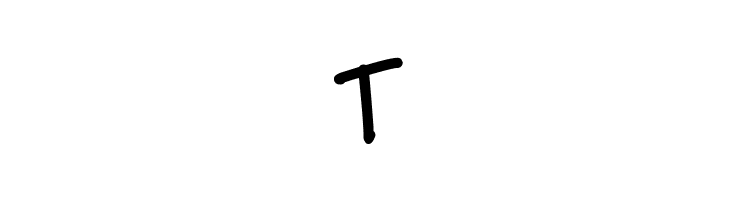
• Loogie Hawk
A playful, hand-drawn font with bold, rounded characters and a whimsical style.
• Loogie Hawk Oblique
A playful, handwritten font with bold, rounded strokes and an oblique style.
• Loogie Hawk Outline
A playful, outlined font with a cartoonish, hand-drawn style.
• Loogie Hawk Outline Oblique
A playful, outlined, and slightly oblique font with a hand-drawn feel.